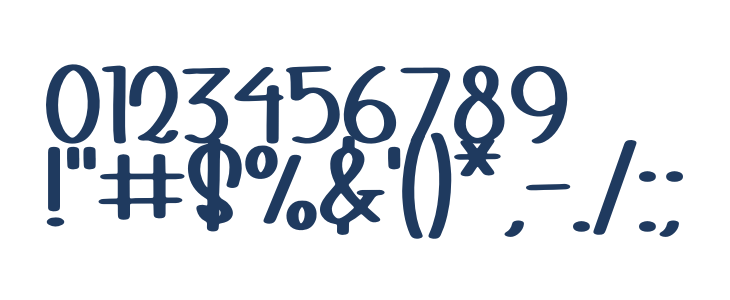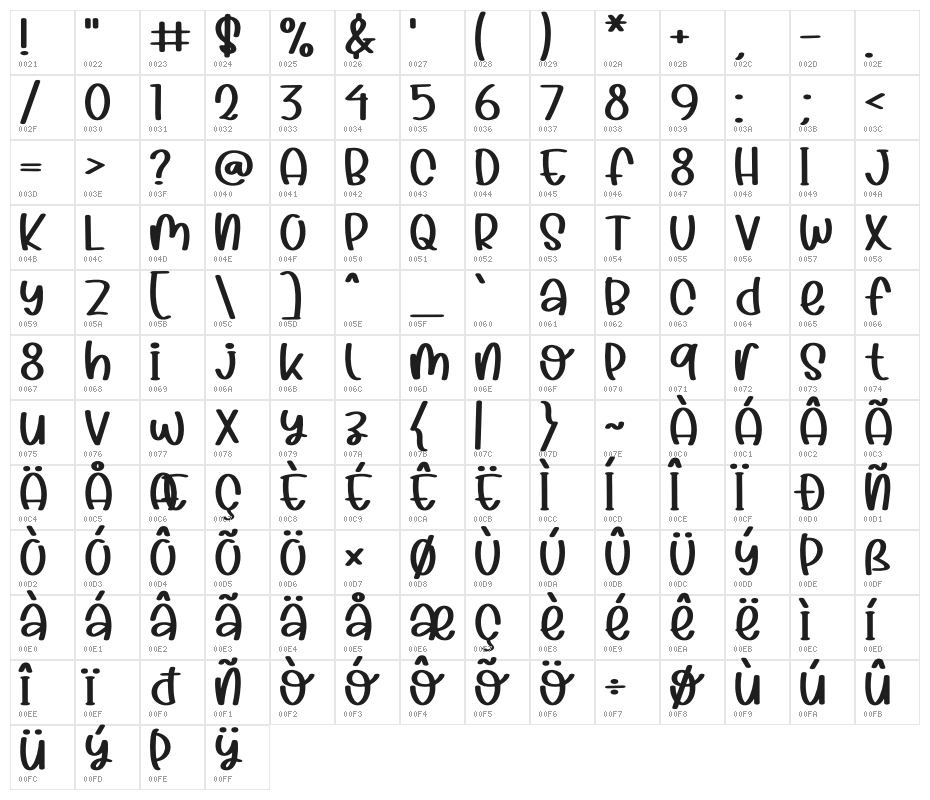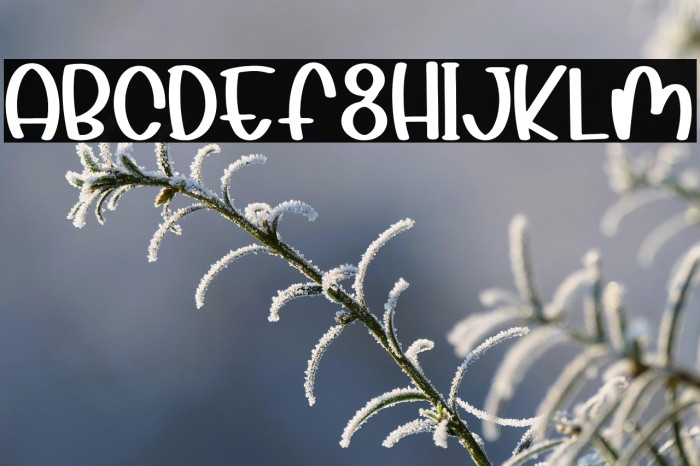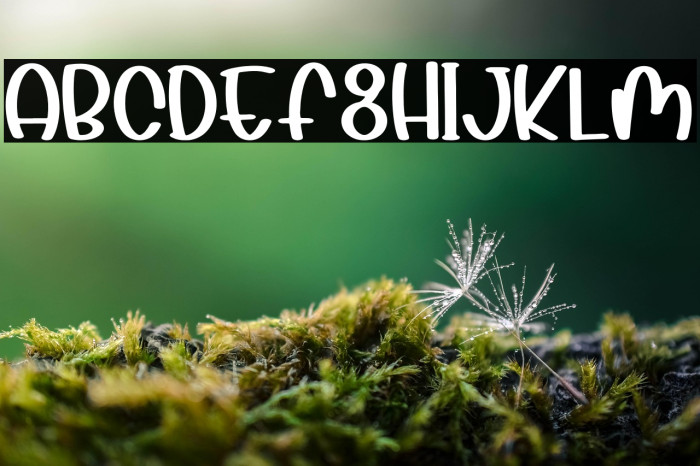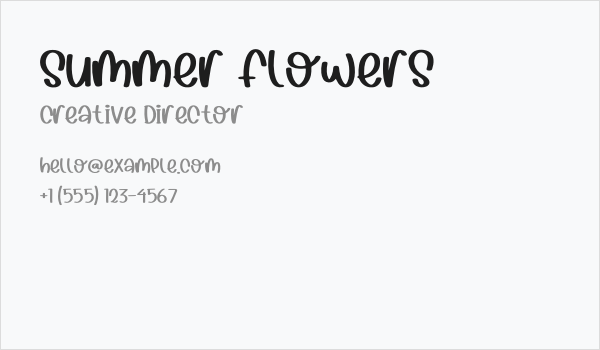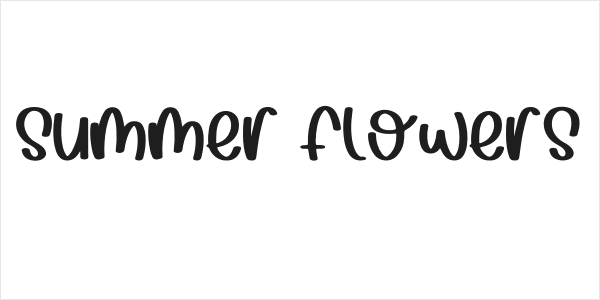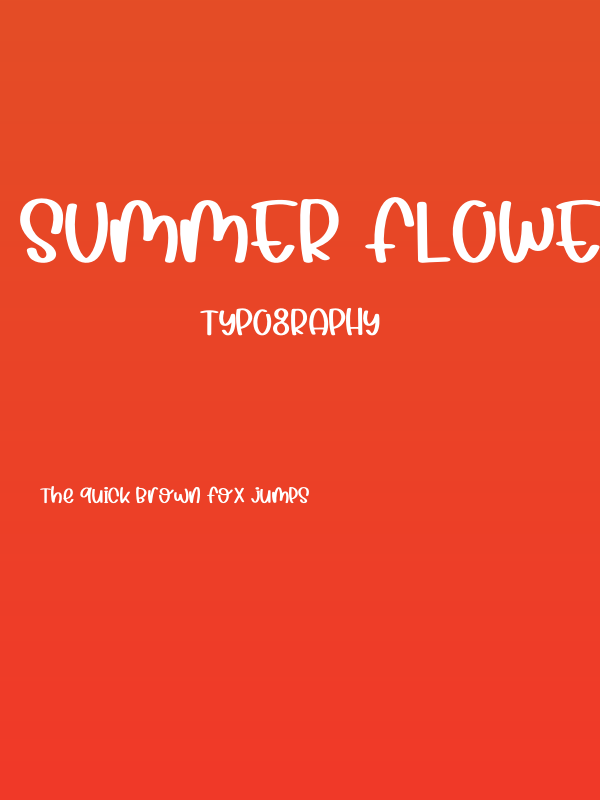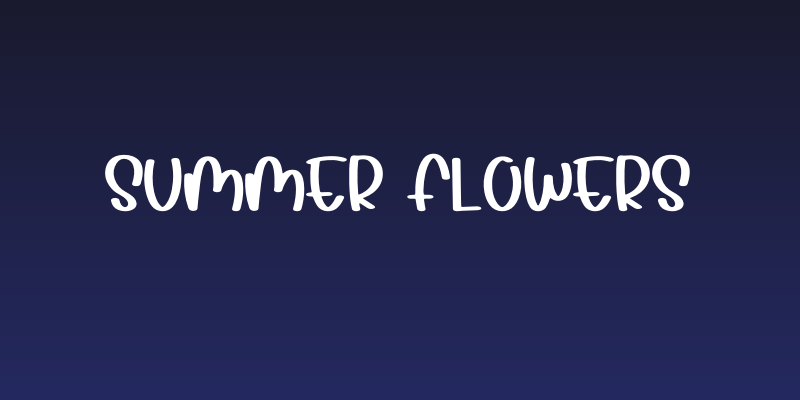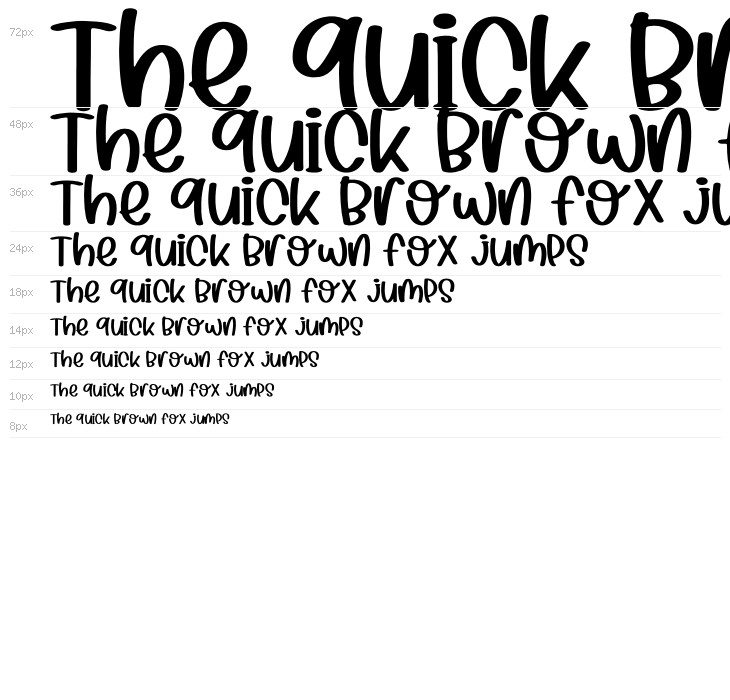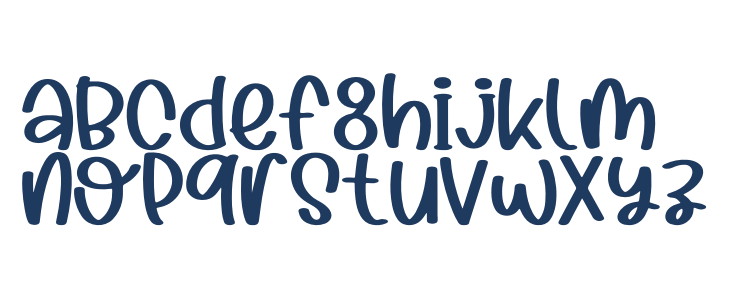
Summer Flowers Font
Summer Flowers Description
This playful and bold font features a handwritten style with a modern twist. The characters are rounded and slightly irregular, giving them a whimsical and friendly appearance. The uppercase and lowercase letters maintain a consistent flow, while the numbers and special characters complement the overall design. The strokes are thick and uniform, adding to the font's bold presence. This font is perfect for projects that require a fun and approachable aesthetic.
| Proposed Projects | Ideal for greeting cards, children's books, playful branding, and social media graphics. |